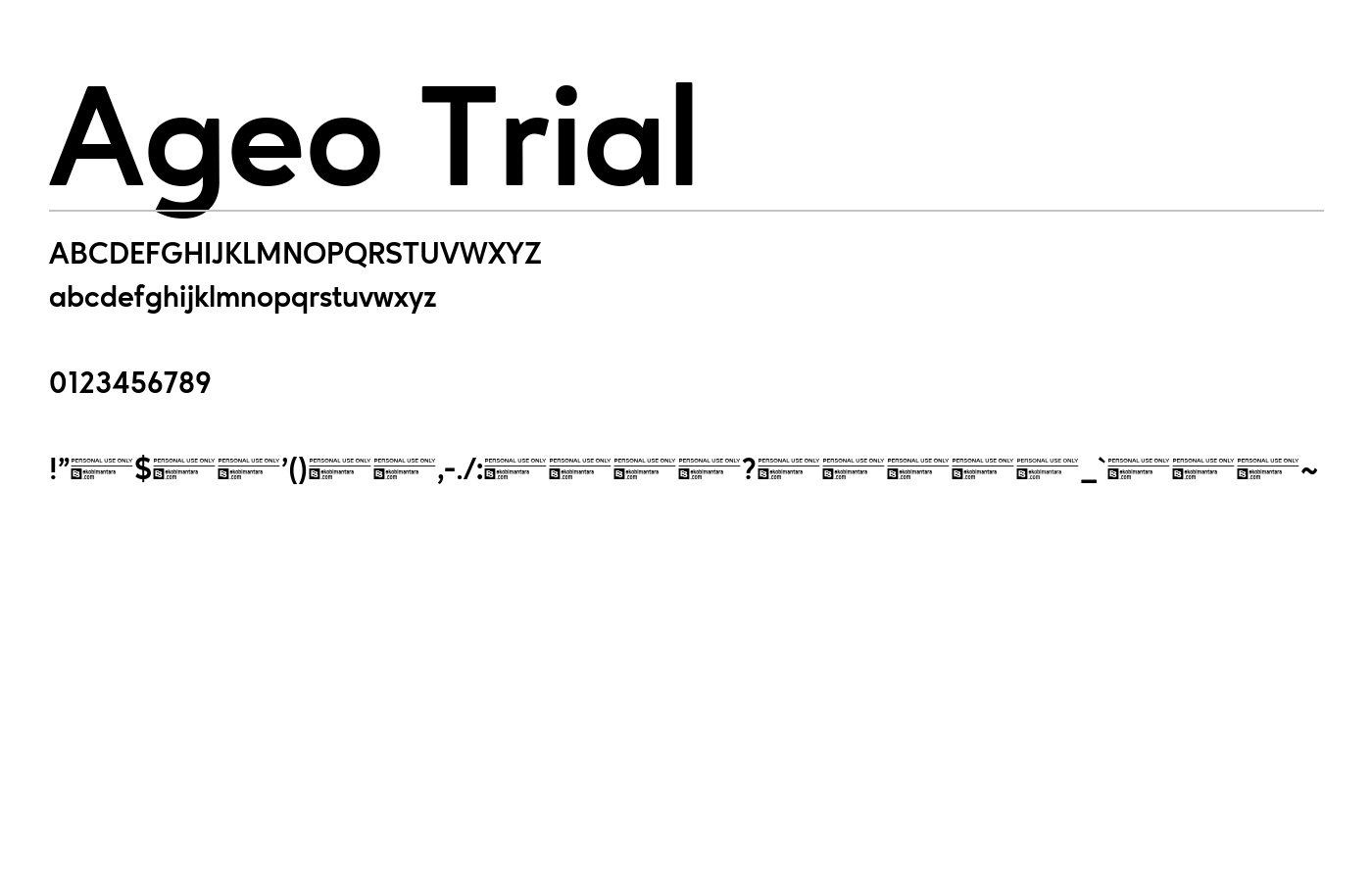
Ageo Trial is a clean, modern sans-serif font characterized by its balanced weight and normal width, making it highly legible and versatile. With simple, geometric letterforms and a straightforward appearance, it conveys a professional yet approachable tone, ideal for branding, editorial designs, and digital content. Its clarity and neutrality make it well-suited for headlines and body text alike, offering a contemporary look that fits a wide range of design projects.
Ageo Trial Font
About Ageo Trial Font
| Font family | Ageo Trial Font |
| Designer | Eko Bimantara |